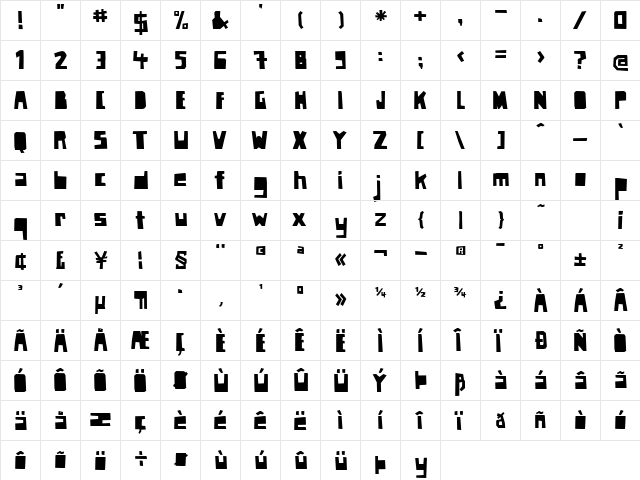
Paper Johnny Drei Regular
Design Context for Paper Johnny Drei Typeface
Paper Johnny Drei is a composed and adaptable typeface that performs quietly and consistently across a wide range of design contexts.